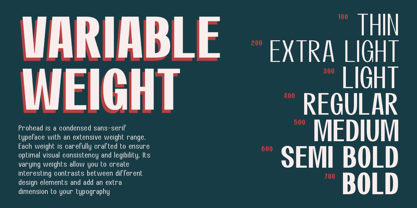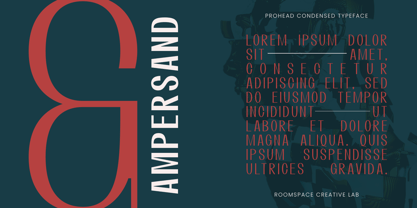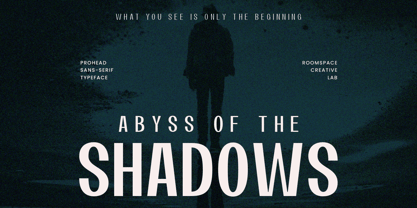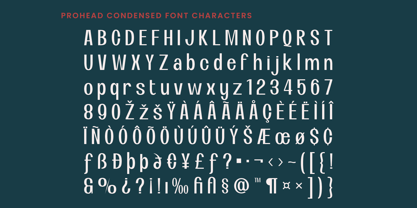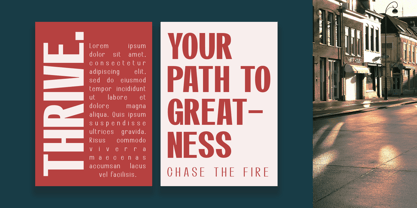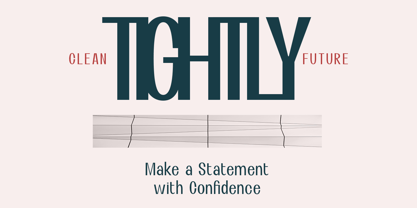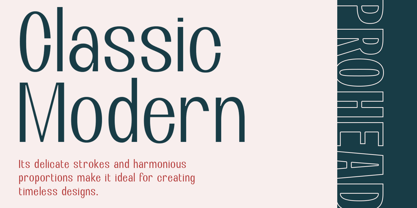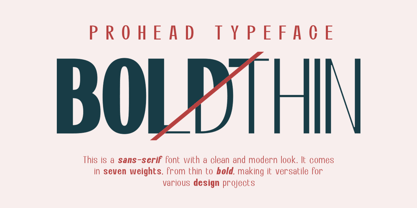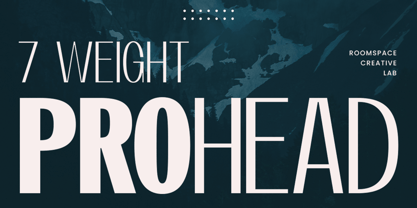
Prohead
by Jafar07
The Prohead Font Family was designed by Bakhrudin Ja'far and published by Jafar07. Prohead contains 7 styles and family package options.
Prohead modern sans-serif condensed font with 7 versatile weights that blend the elegance of classic design with contemporary trends. Its clean and professional look makes it the perfect choice for logos, branding, web design, packaging, and more. With 7 distinct weights, you have the flexibility to create bold headlines, refined body text, and everything in between. Designed with legibility and style in mind, Prohead adapts seamlessly to any design style, whether you're aiming for a minimalistic aesthetic or a modern classic approach.
A little from my personal design & background: My name is Bakhrudin Ja'far, I live in Malang, Indonesia. I am currently completing my degree in visual communication design and I have worked as a lettering artist and logo designer for many years. I finally started my studio called roocspace creative lab (jafar07) Studio a few months ago and with my team made my letters into typography.